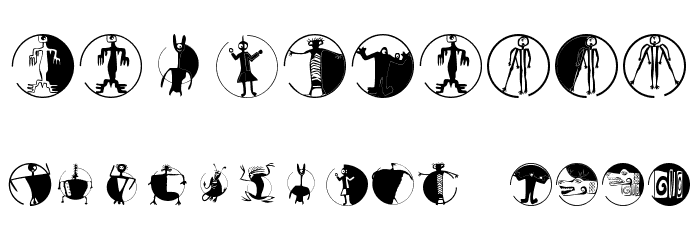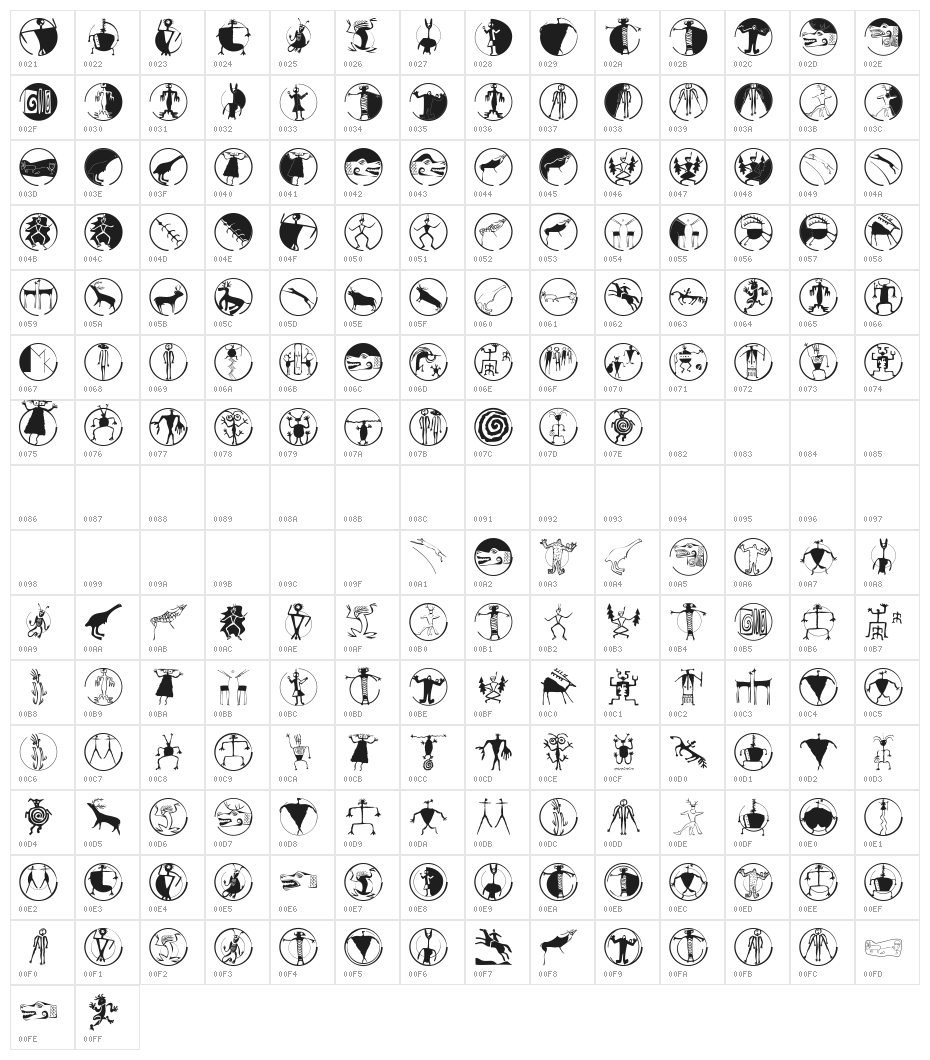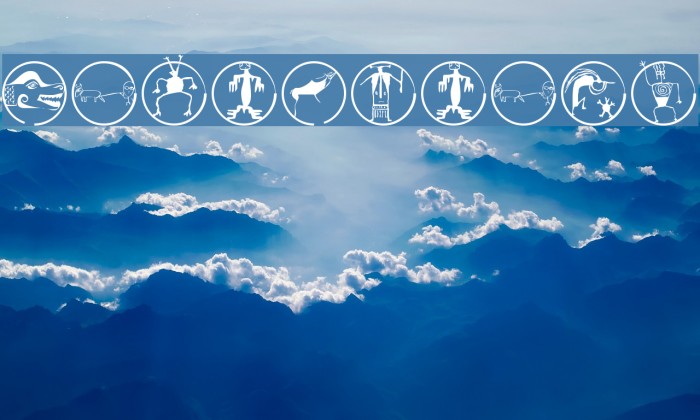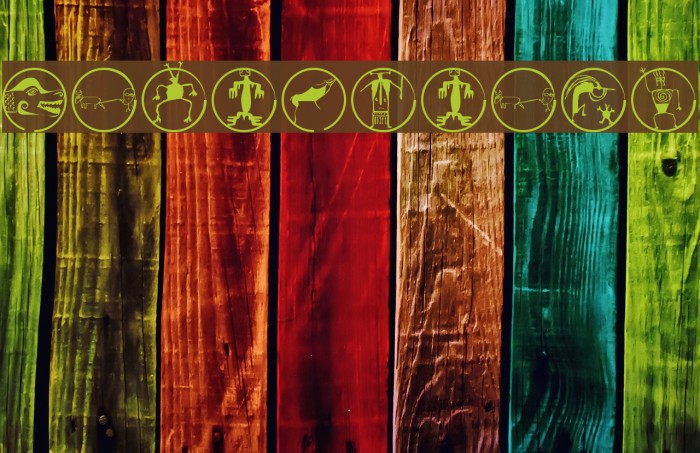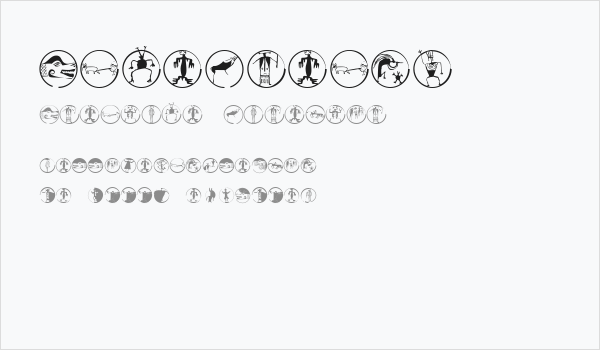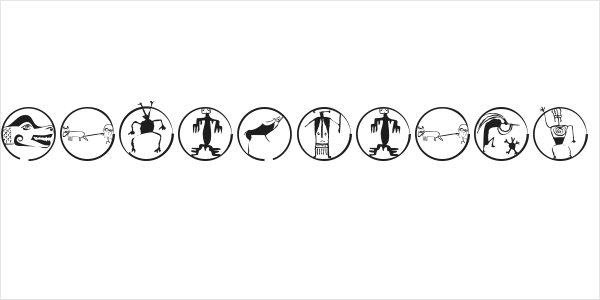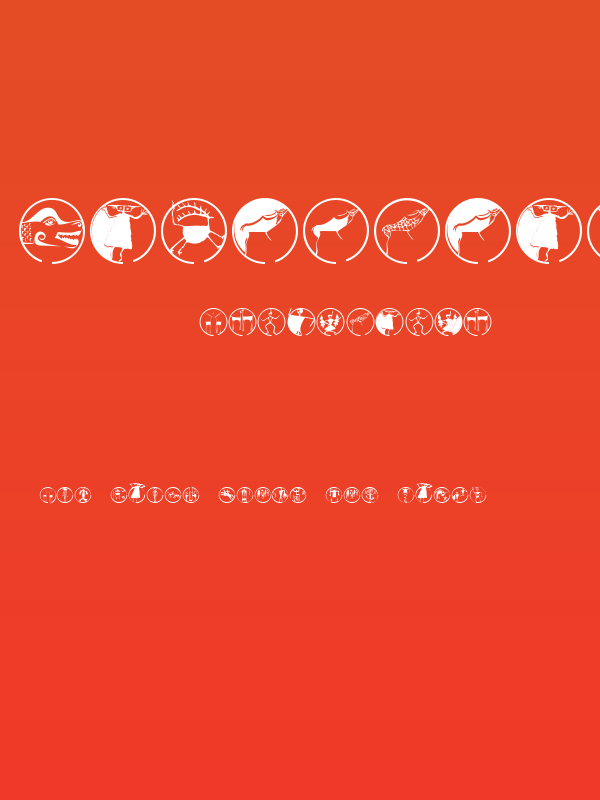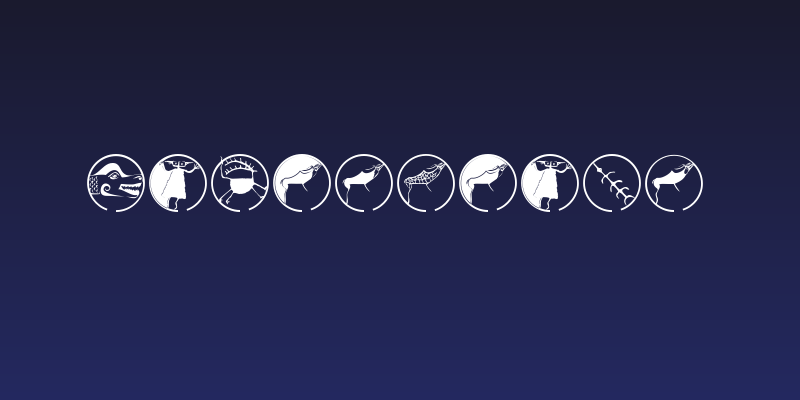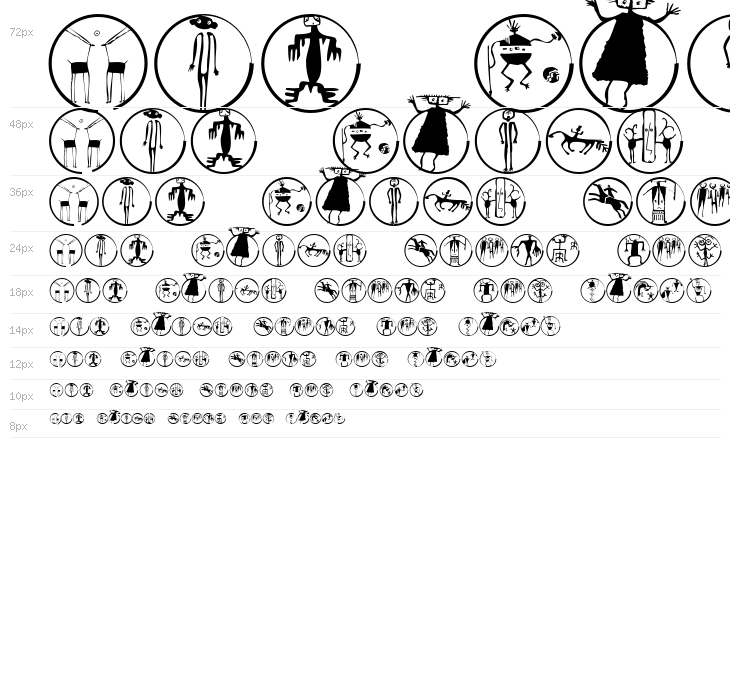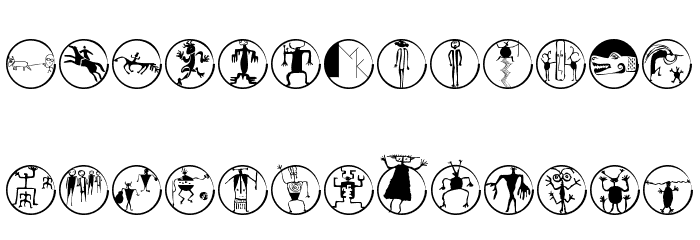
CaveDreams Font
This unique and artistic font features a series of pictographic symbols inspired by ancient cave paintings and tribal art. Each character is enclosed within a circle, presenting a variety of abstract and stylized figures, animals, and shapes. The design is highly decorative, with a strong emphasis on visual storytelling and cultural motifs. The bold, black-and-white contrast enhances the visibility of each symbol, making them stand out distinctly. The font is not intended for traditional text but rather for creative projects that require a touch of historical or cultural flair. Its intricate and imaginative style makes it suitable for thematic designs, art projects, or educational materials exploring ancient cultures.
Use CaseLogos, Art projects, Educational materials
Proposed ProjectsIdeal for art projects, educational materials on ancient cultures, thematic designs, and creative storytelling.